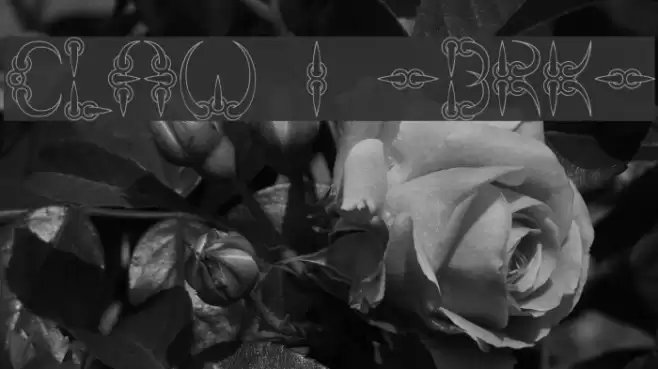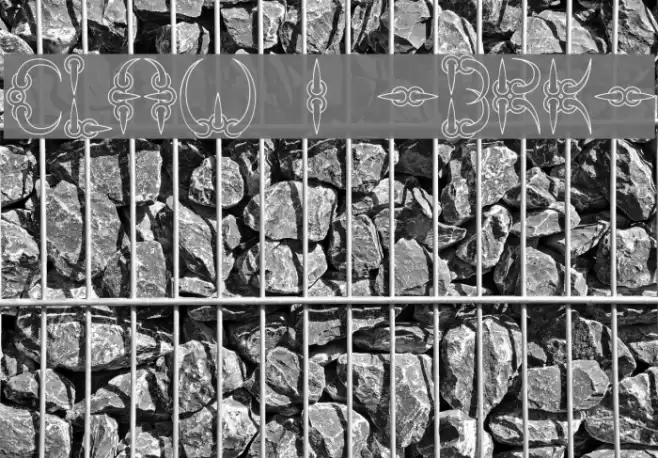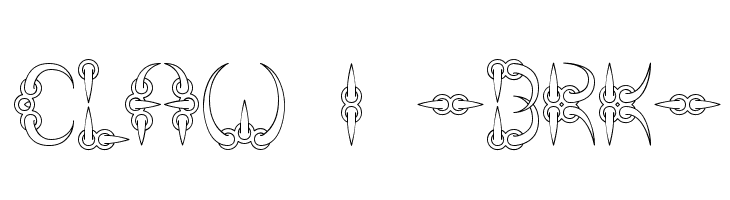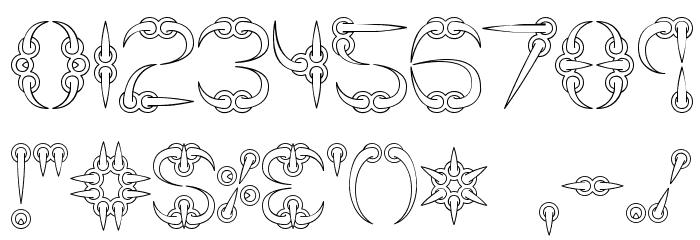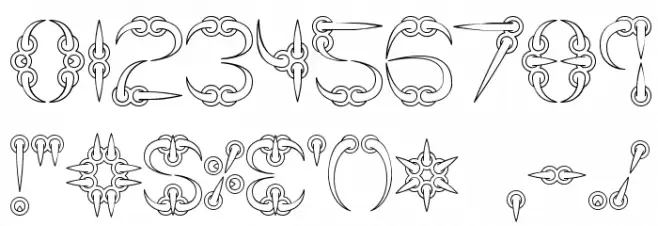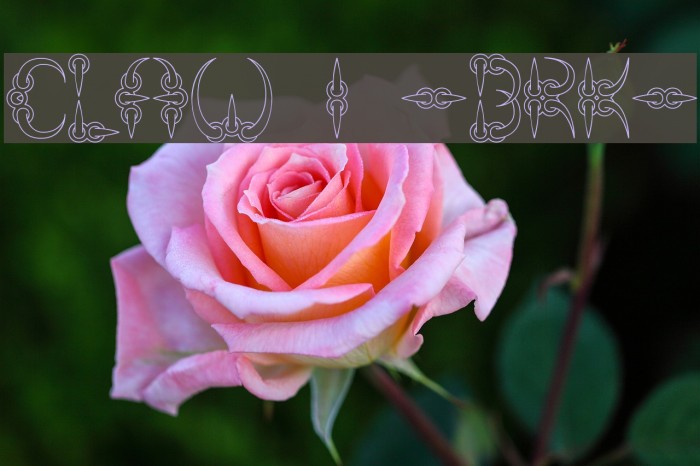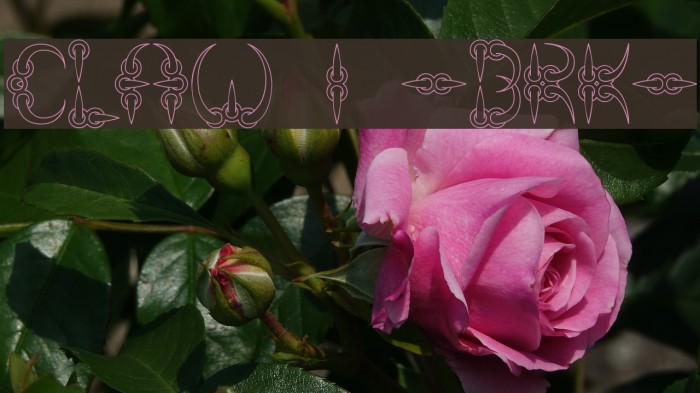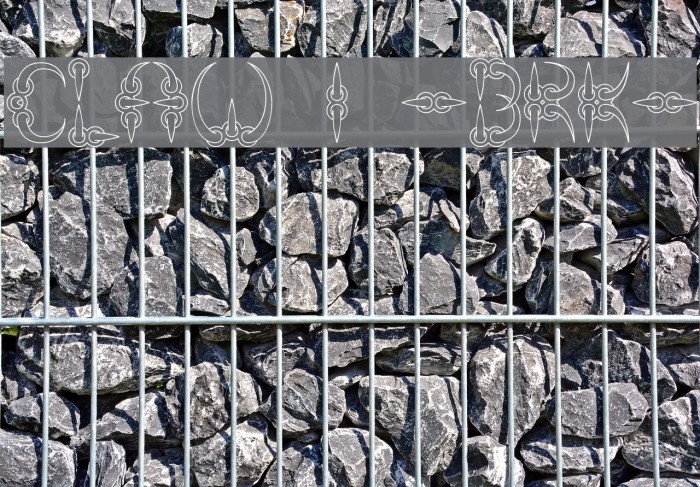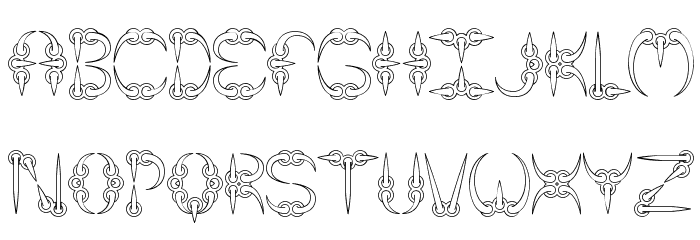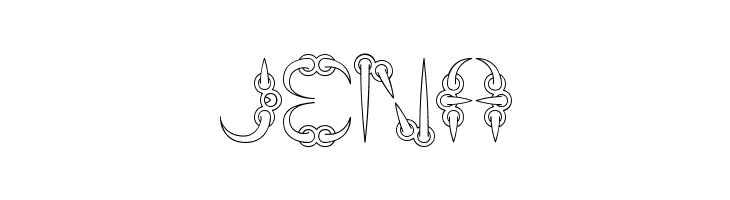
CLAW 1 -BRK- Font
CLAW 1 -BRK- Description
This font features an intricate and decorative design, characterized by sharp, pointed elements and swirling patterns that create a sense of movement and complexity. The uppercase and lowercase letters share a consistent style, with each character incorporating unique, ornamental details that resemble claws or talons. The numbers and special characters maintain this theme, offering a cohesive and visually striking appearance. The font's elaborate design makes it ideal for projects that require a bold and artistic statement.
An intricate, claw-like decorative font with sharp, swirling elements from Outline fonts.
- Proposed Projects: Ideal for fantasy-themed designs, album covers, posters, and branding that requires a bold, artistic touch.